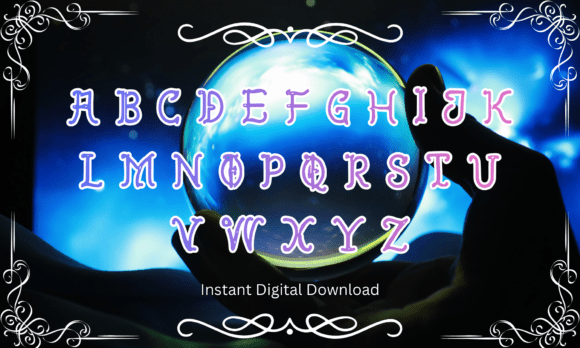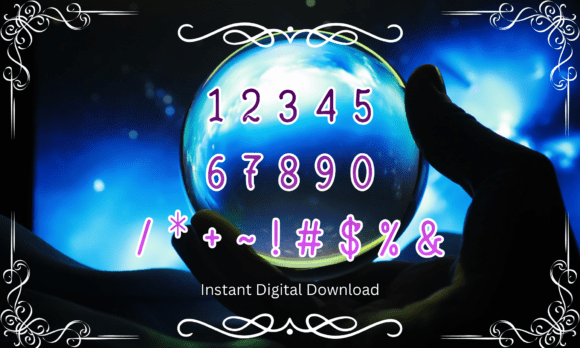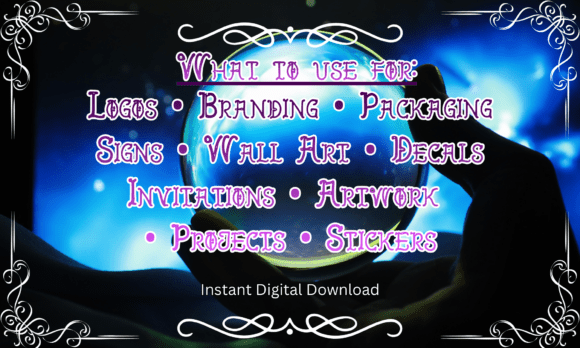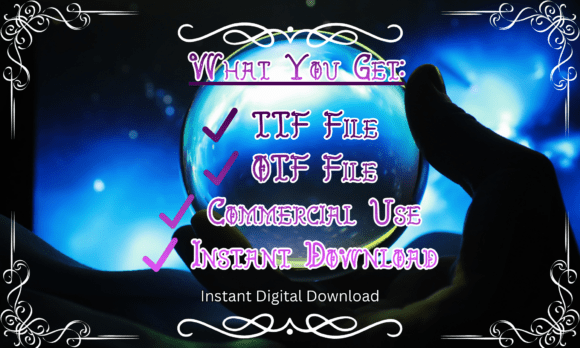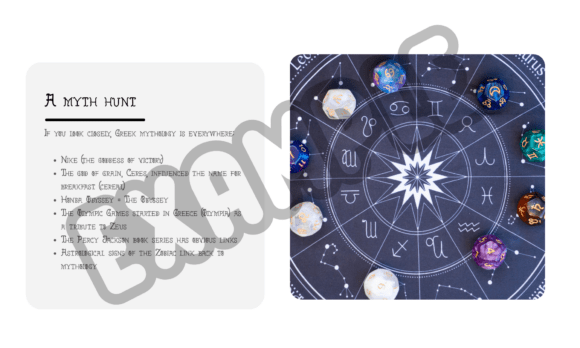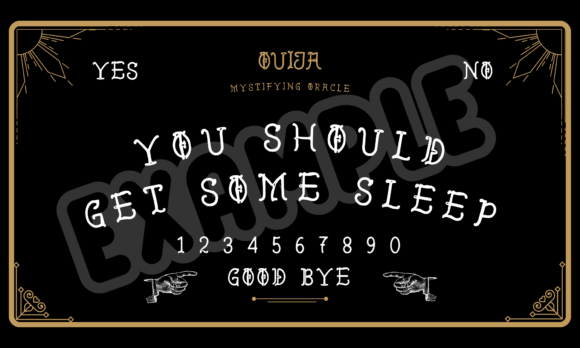
Unlock the Mystical Power of Divine Oracle Font
Step into the mystical unknown with Divine Oracle, an enchanting display font that will transport your designs to a realm of ancient magic, divination, and arcane symbols. Inspired by the mysterious and the unknown, this font features unique letterforms that feel like they were pulled from a forgotten spellbook. With its ornamental details and mystical energy, Divine Oracle is perfect for creating designs that feel magical, spiritual, and otherworldly.
Perfect for Magical Designs
Divine Oracle is specifically designed for designers and crafters who want to infuse their work with a touch of mysticism and fantasy. Here are some perfect use cases for this enchanting font:
- Tarot & Spiritual Designs: Create mystical and insightful tarot cards, spiritual guides, and meditation aids that will resonate with those seeking inner wisdom.
- Witchy Branding: Conjure up a spellbinding brand identity with Divine Oracle, perfect for witchy businesses, magical services, or occult-inspired products.
- Fantasy Projects: Bring mythical worlds to life with Divine Oracle, ideal for fantasy novels, games, or movies that require an otherworldly feel.
- Book Covers & Titles: Add a touch of mystique to your book covers and titles, making them stand out in the literary world.
- Stickers & Merch: Create enchanting stickers, prints, and merchandise that will appeal to fans of magic, fantasy, and spirituality.
- Invitations & Events: Set the tone for mystical events, workshops, or rituals with Divine Oracle, ensuring an unforgettable experience for attendees.
- Digital Artwork: Incorporate Divine Oracle into your digital art, graphics, and illustrations to imbue them with an air of mystery and wonder.
- Uppercase & Lowercase Letters: Complete with both uppercase and lowercase letters for versatile design options.
- Numbers & Symbols: Includes a range of numbers and symbols to enhance your designs.
Font Style & Characteristics
Divine Oracle embodies the mystical and arcane, with a font style that can be described as:
- Mystical / Arcane: Inspired by ancient magic and forgotten lore.
- Fantasy Display: Perfect for showcasing bold, eye-catching designs.
- Gothic Influence: With subtle nods to Gothic typography, adding a sense of mystery and drama.
- Witchy Aesthetic: Conjuring up images of mystical rituals and ancient spells.
- Spellbook Inspired: As if plucked straight from a forgotten spellbook, adding an air of authenticity to your designs.
Why You’ll Love Divine Oracle
This enchanting font is designed to evoke feelings of:
- Magical: Transport your designs to a realm of wonder and enchantment.
- Mysterious: Leave a lasting impression with an air of intrigue and secrecy.
- Unique: Stand out from the crowd with a font that adds a distinct personality to your designs.
In conclusion, Divine Oracle Font is a powerful tool for designers and crafters seeking to infuse their work with a touch of magic, mystery, and wonder. With its ornate details, mystical energy, and versatility, this enchanting font is sure to cast a spell on your audience. Download Divine Oracle today and unlock the secrets of the mystical unknown.